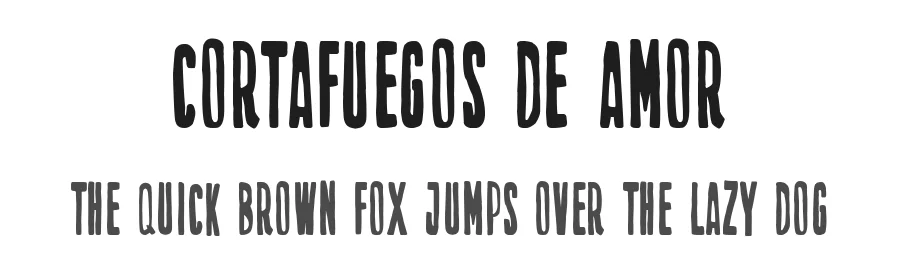
About HFF High Tension Font
HFF High Tension is a decorative font designed by Have Fun with Fonts. It includes 108 glyphs, a regular weight, OTF (CFF) format, and 109 languages. HFF High Tension is free to download; check the license details on this page before commercial use. Decorative fonts like HFF High Tension work best for logos, posters, packaging, and standout headlines.
HFF High Tension supports 109 languages.
HFF High Tension Font is a decorative font that shines as a display or heading face. Pair it with a clean sans-serif or serif font for body text β the contrast creates a clear hierarchy while the two styles stay balanced and easy to read.